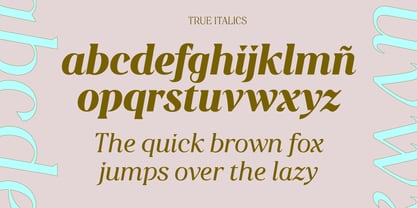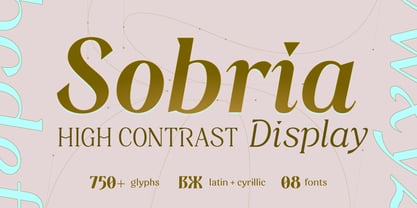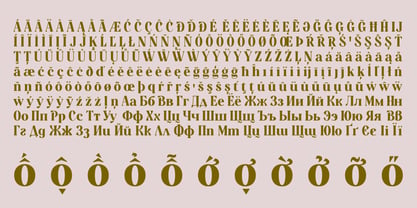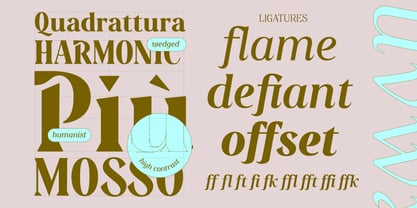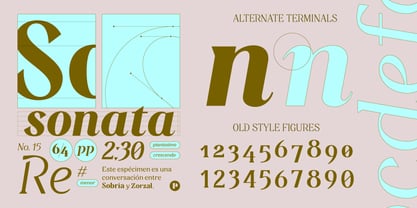
Sobria
by Pedroglifos
The Sobria Font Family was designed by Pedro Medina-Leandry and published by Pedroglifos. Sobria contains 8 styles and family package options. More about this family
Sobria is a high-contrast display typeface defined by its sharp triangular serifs and sculptural strokes, made to evoke a sense of finesse with a hint of quiet edge. Its sharp terminals radiate elegance while retaining a bold graphic character. Sobria’s distinct glyphic cuts and unconventional forms — like the sculpted «g» and the disjointed bowls in «B, D, P, R» — bring a unique personality.
Sobria supports both Latin and Cyrillic scripts, covering over 294 languages, and includes stylistic alternate terminals in its italic forms for added fluidity and rhythm. Designed with headlines and standout titles in mind, it performs best when given space to assert its presence.
It pairs especially well with Ozelot and Deliria — offering a refined balance for projects seeking drama with restraint and clarity with character.